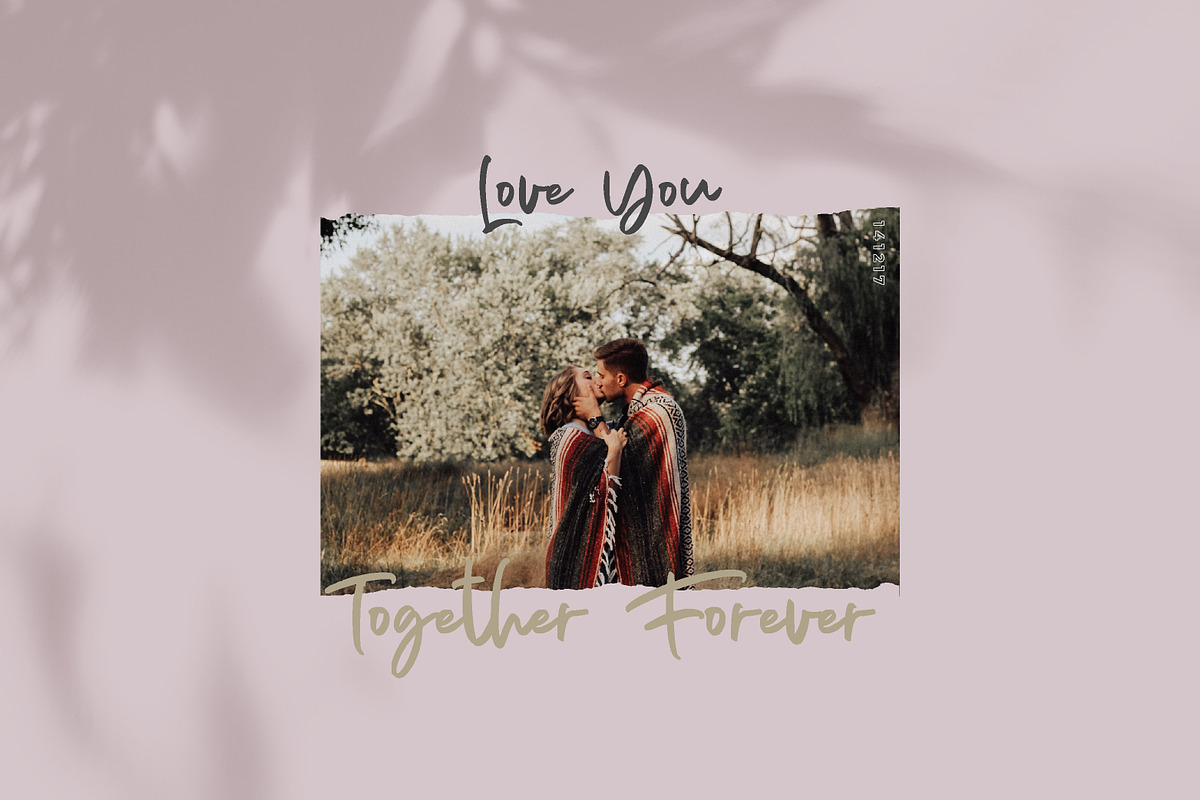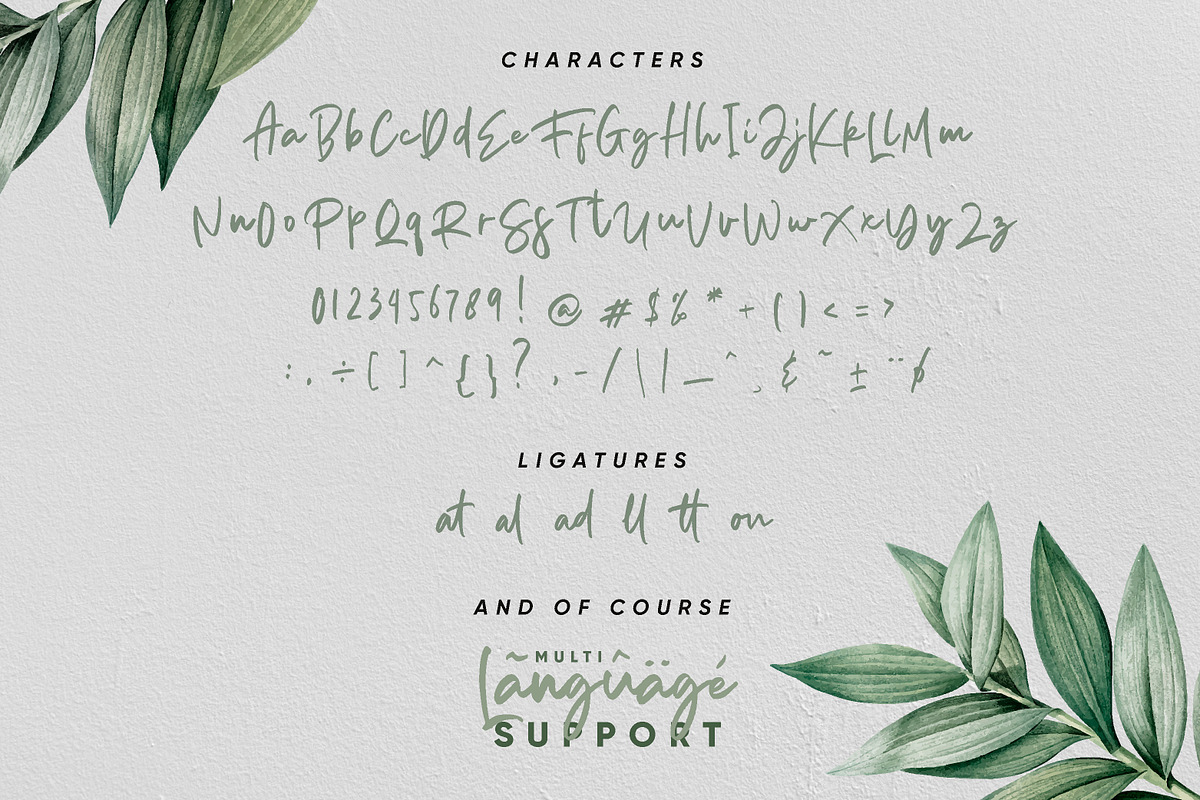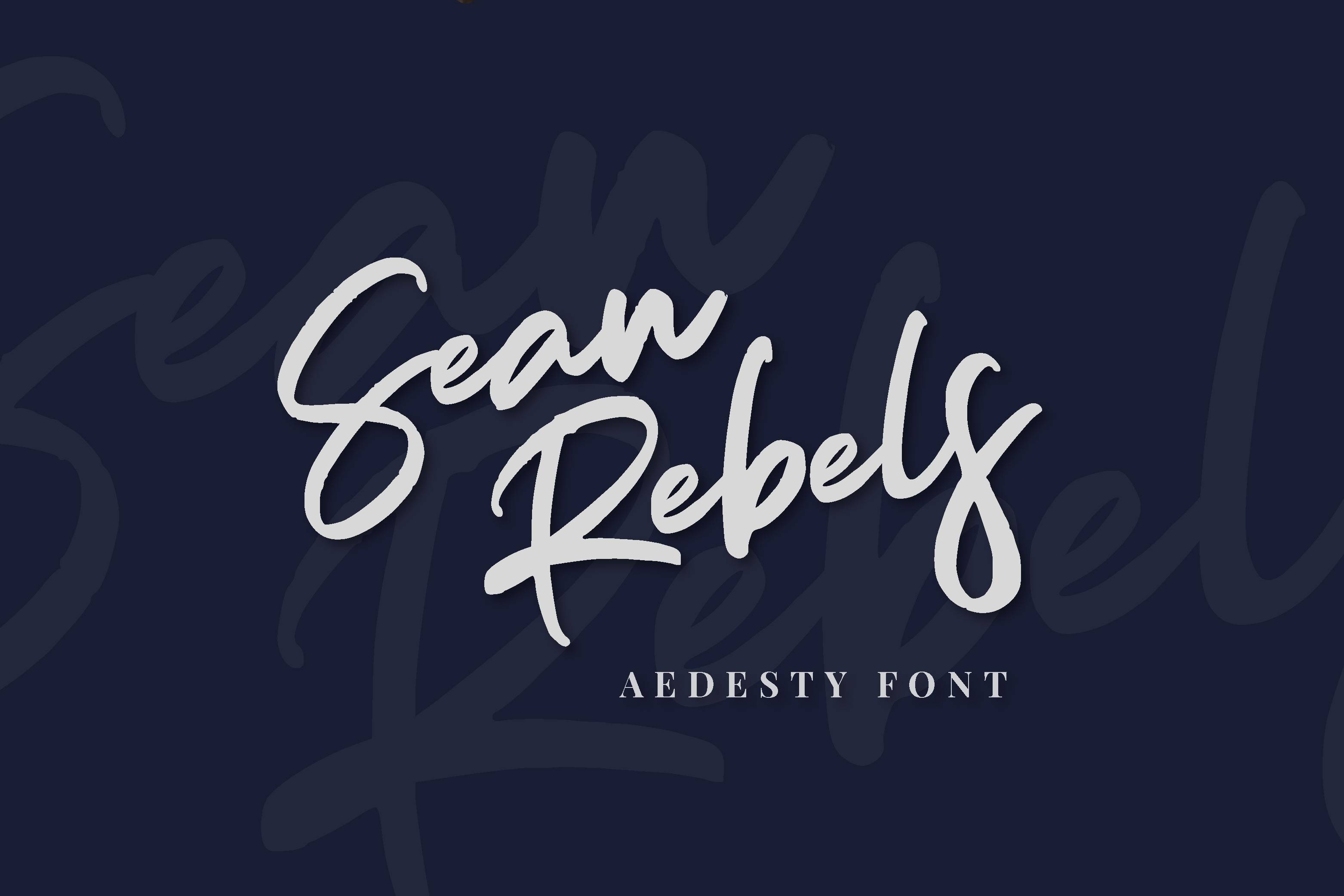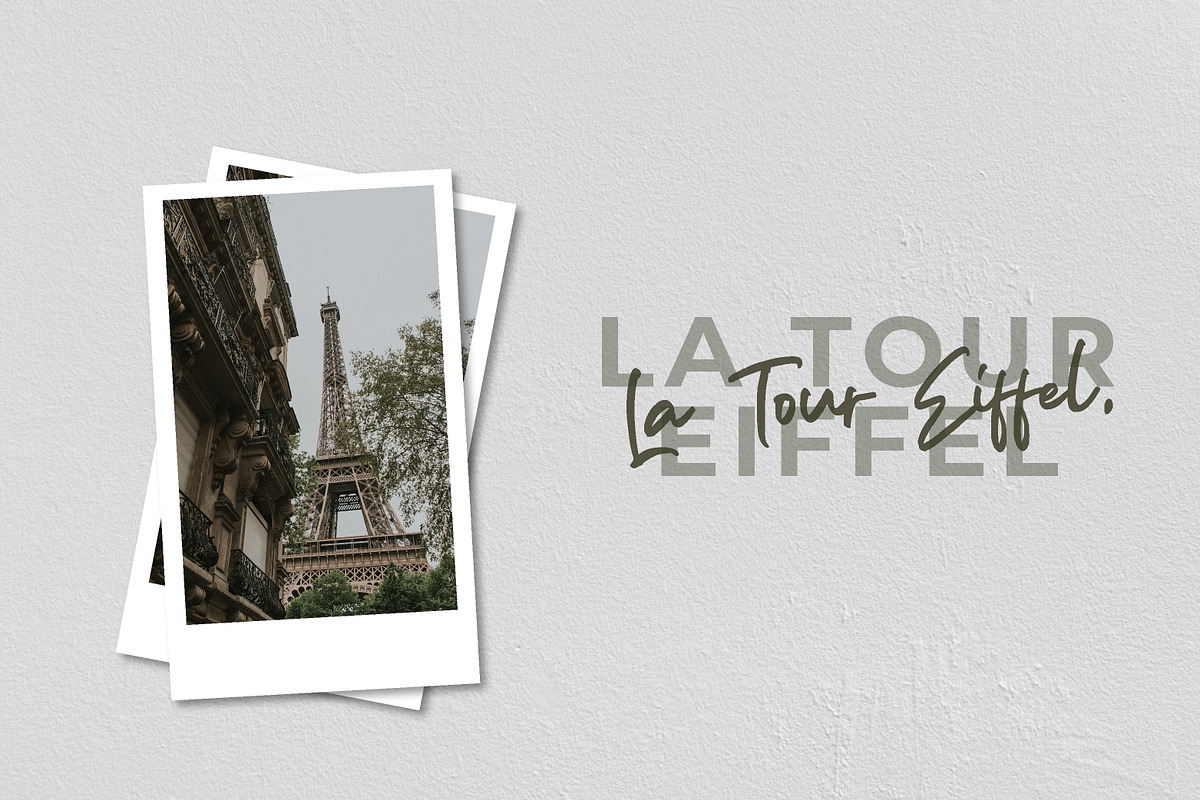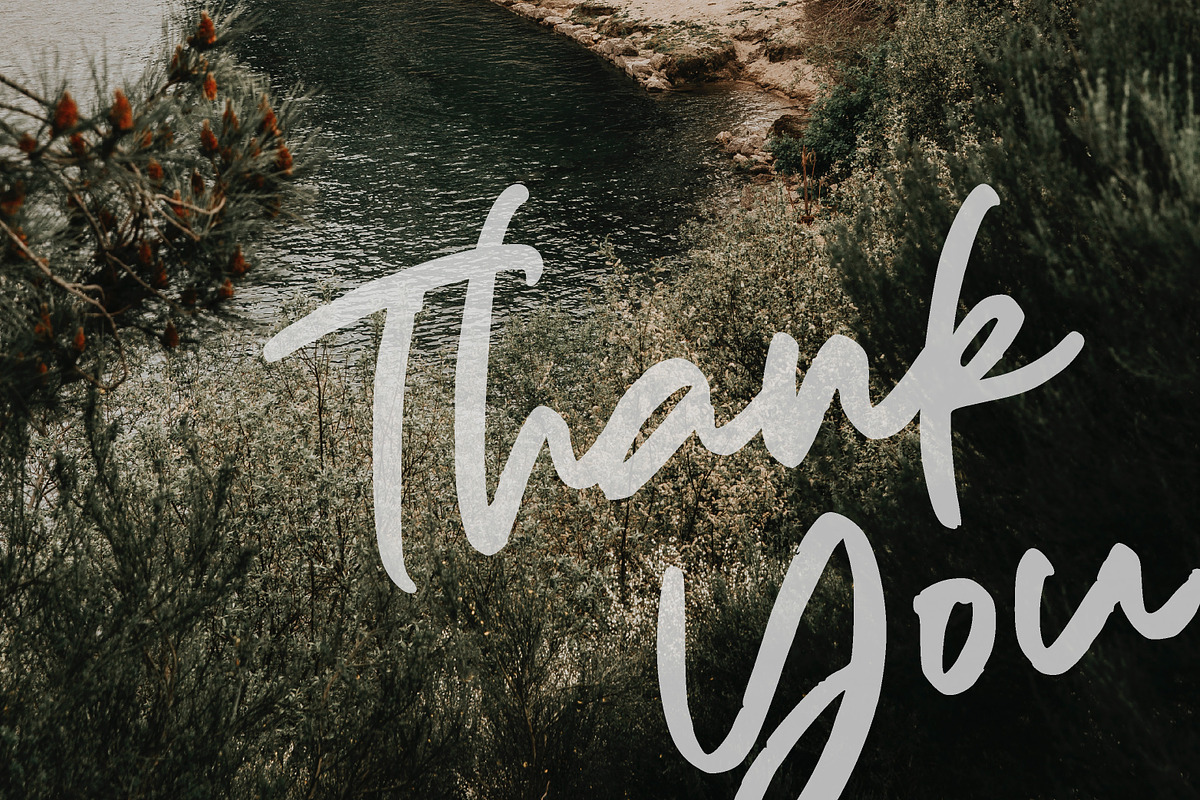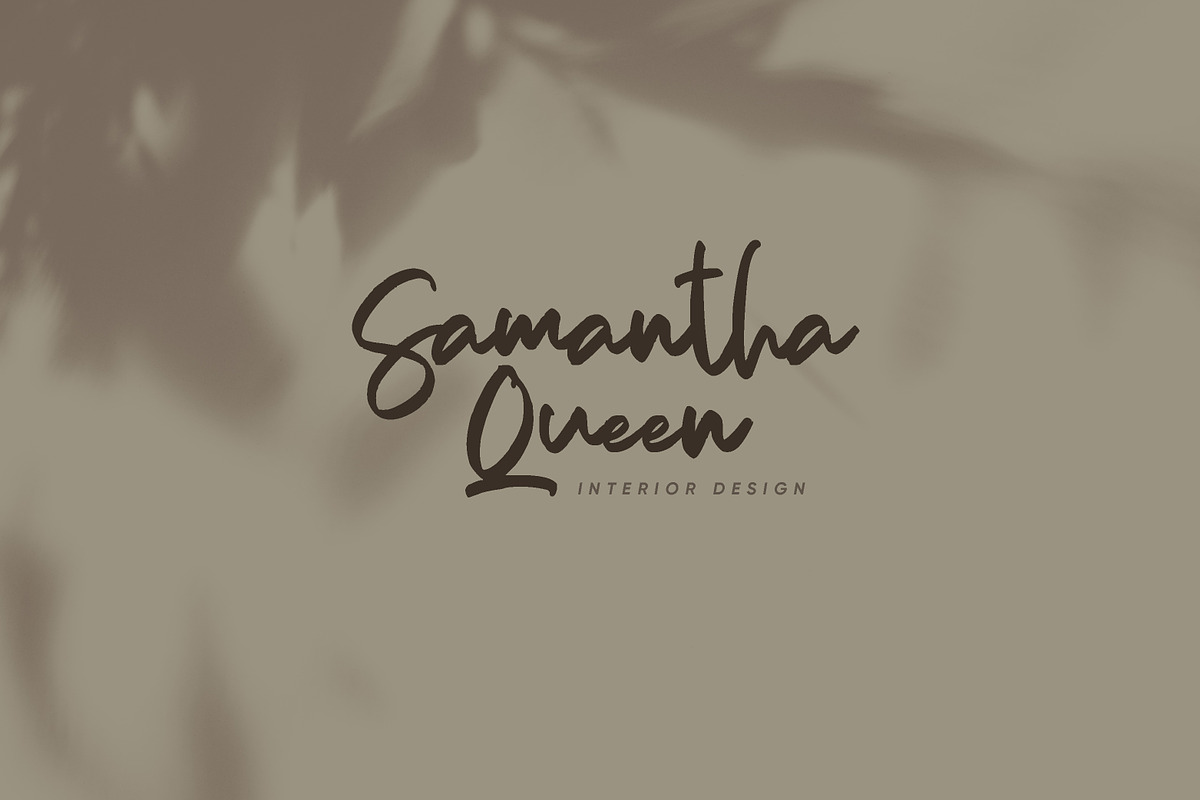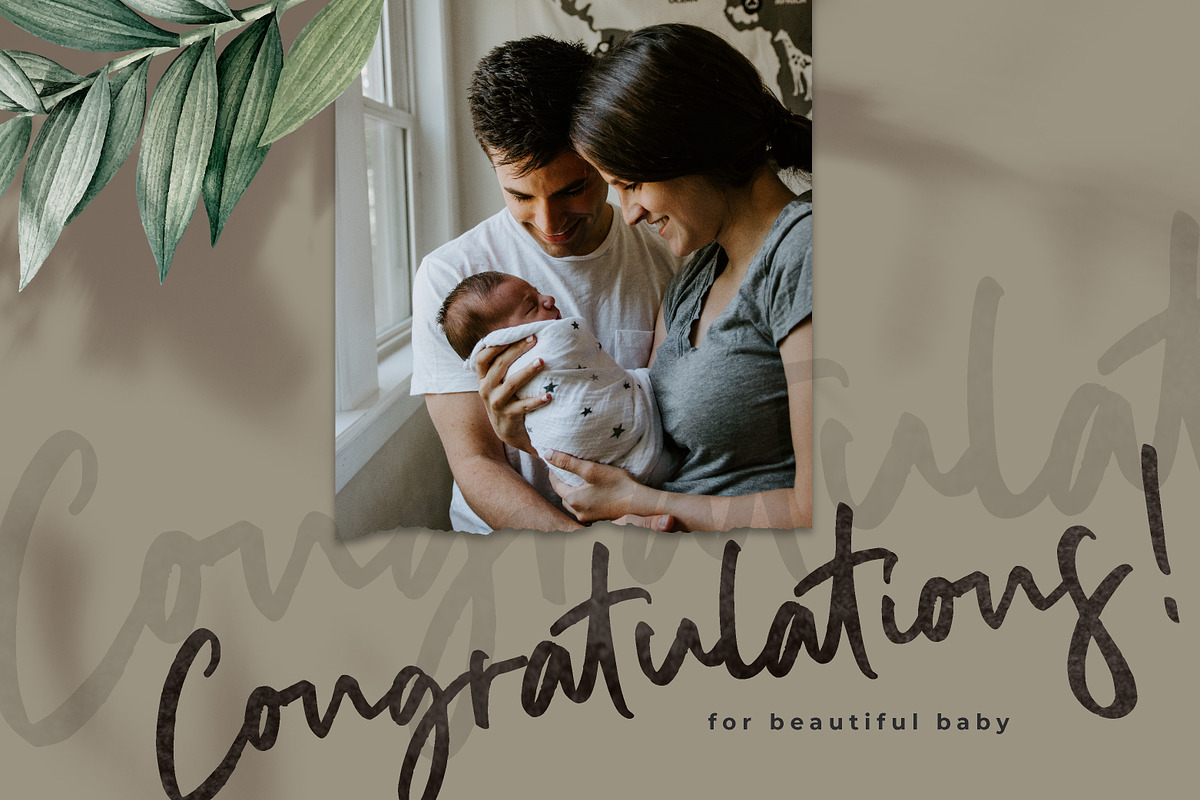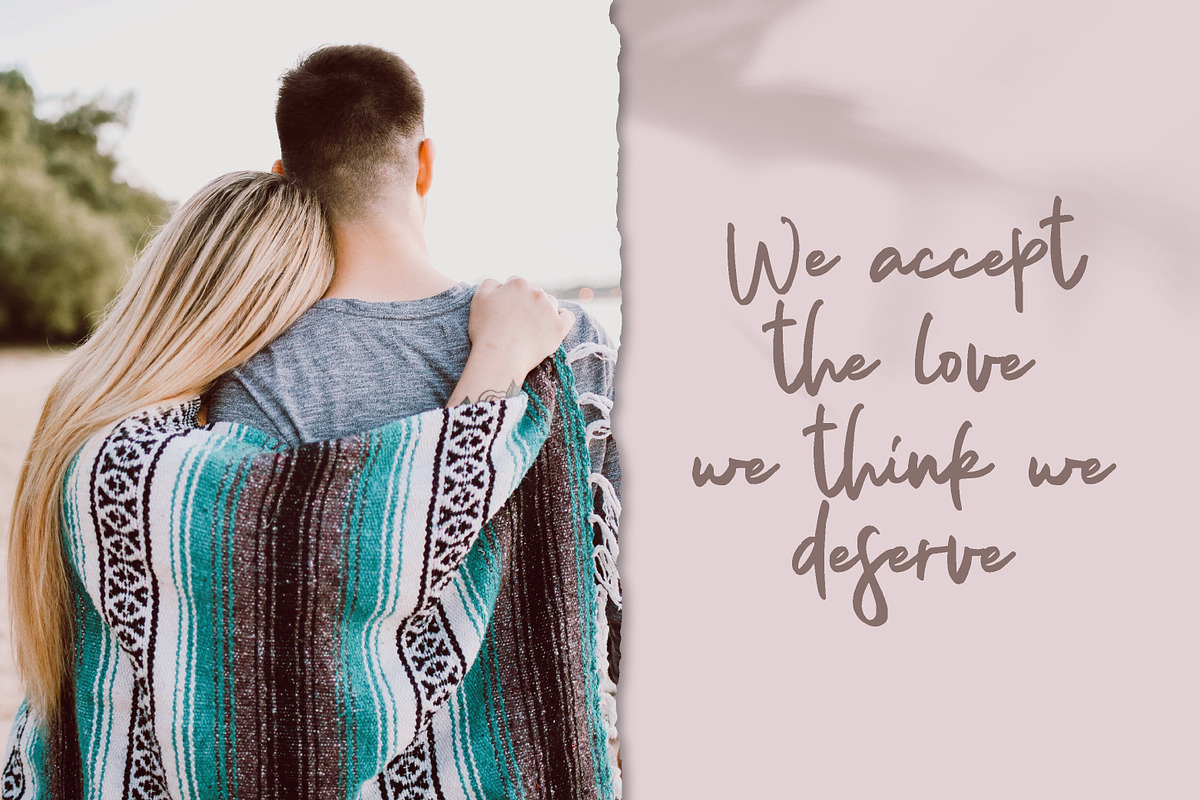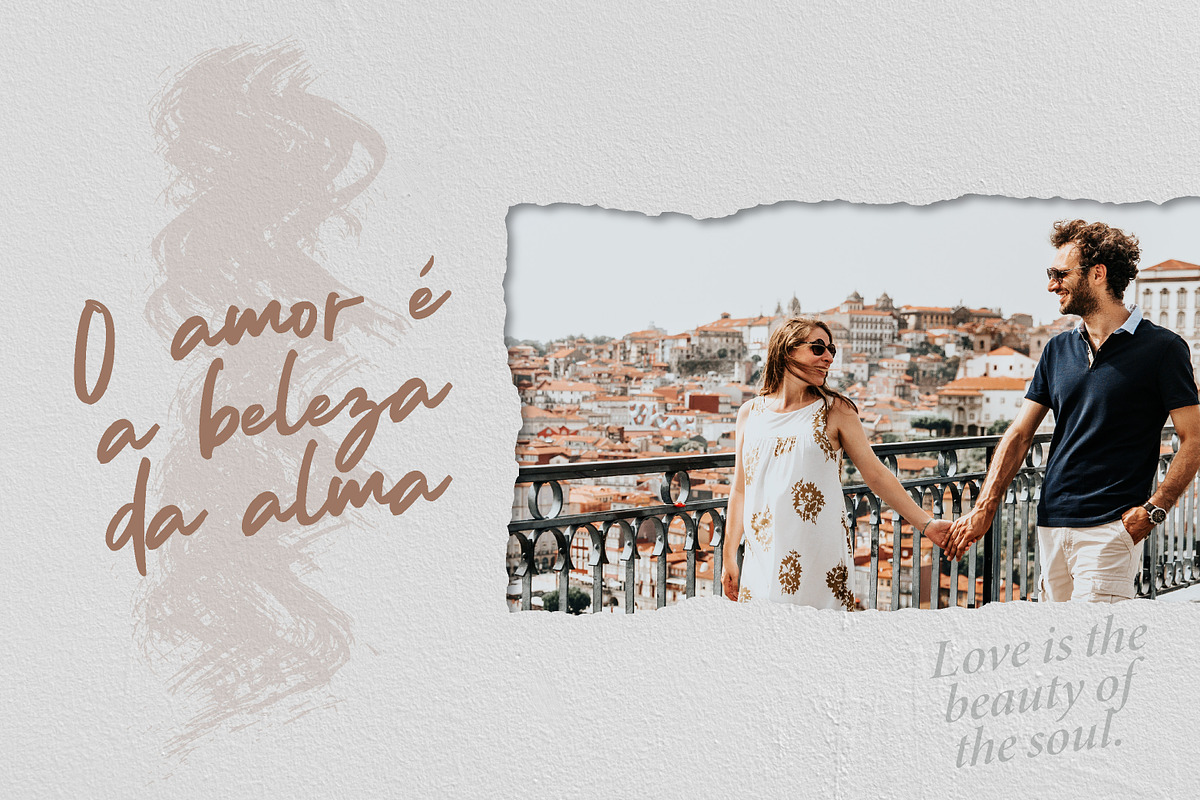
Aedesty // Handwritten Font
Hello Friends! Introducing Aedesty Handwritten Script A natural handwritten font which perfect for your designs project like logo, signature, invitation, stationary, wedding photo, watermark, social media post, advertisement, poster, product packaging, label, photography, event post and other designs.
Just try it, I think it combines all these qualities. Simple and clear, looks at ease.